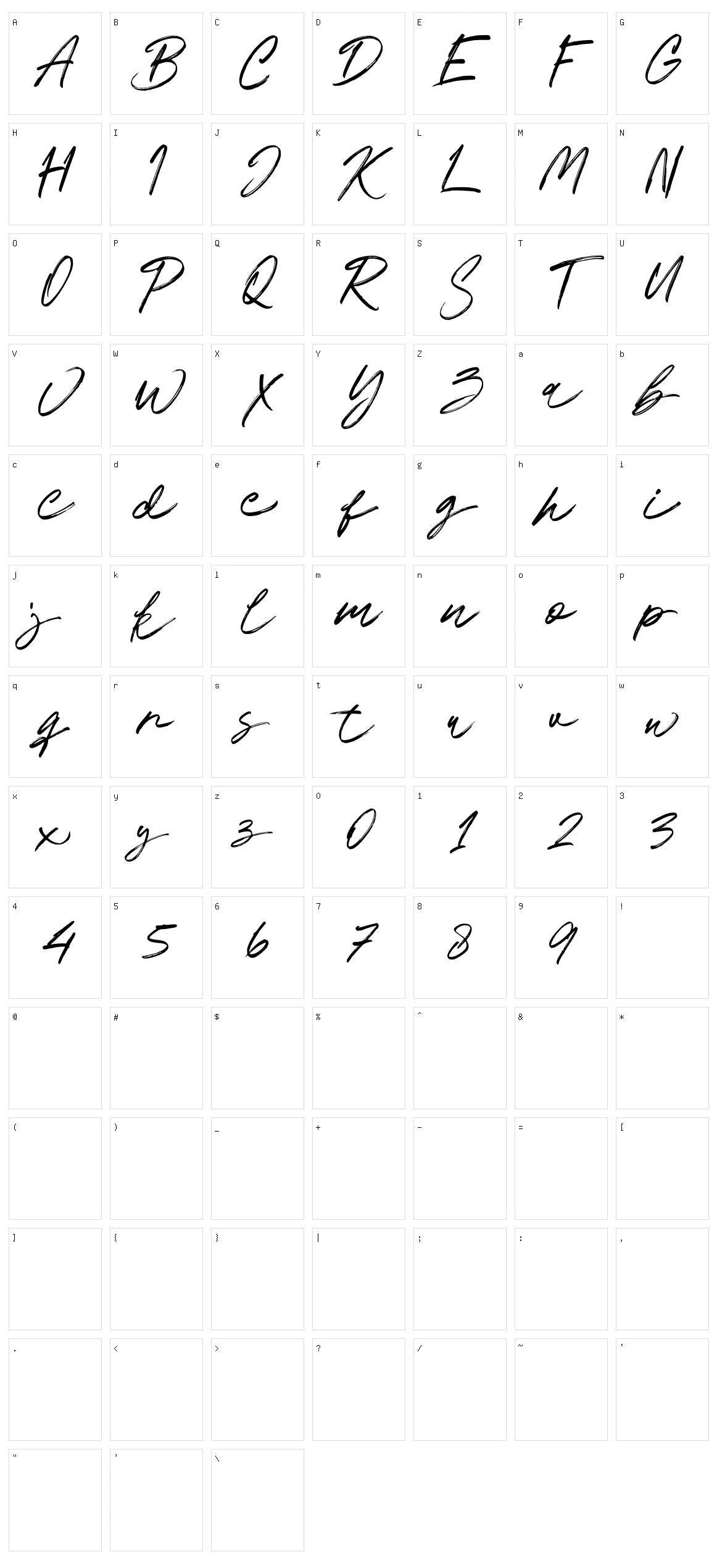
The free font Cwacker is carefully designed by hustletter, showcasing a thoughtful balance of creativity and usability and falls under the Script font style. When you download the ZIP file, it contains only 44.25 KB of font files, making it lightweight and quick to download. Please review the license details below to understand permitted usage and distribution rights. If license information is not available, we recommend using this font for personal projects only or contacting the author directly for commercial usage permissions.